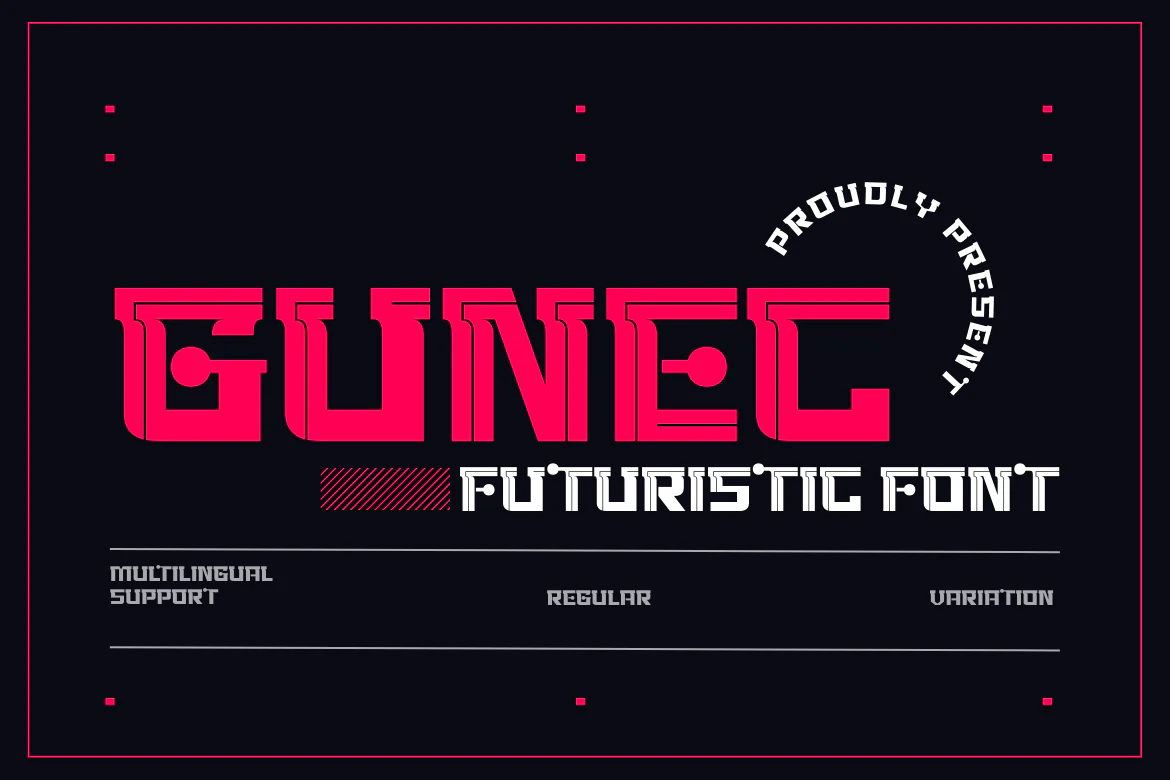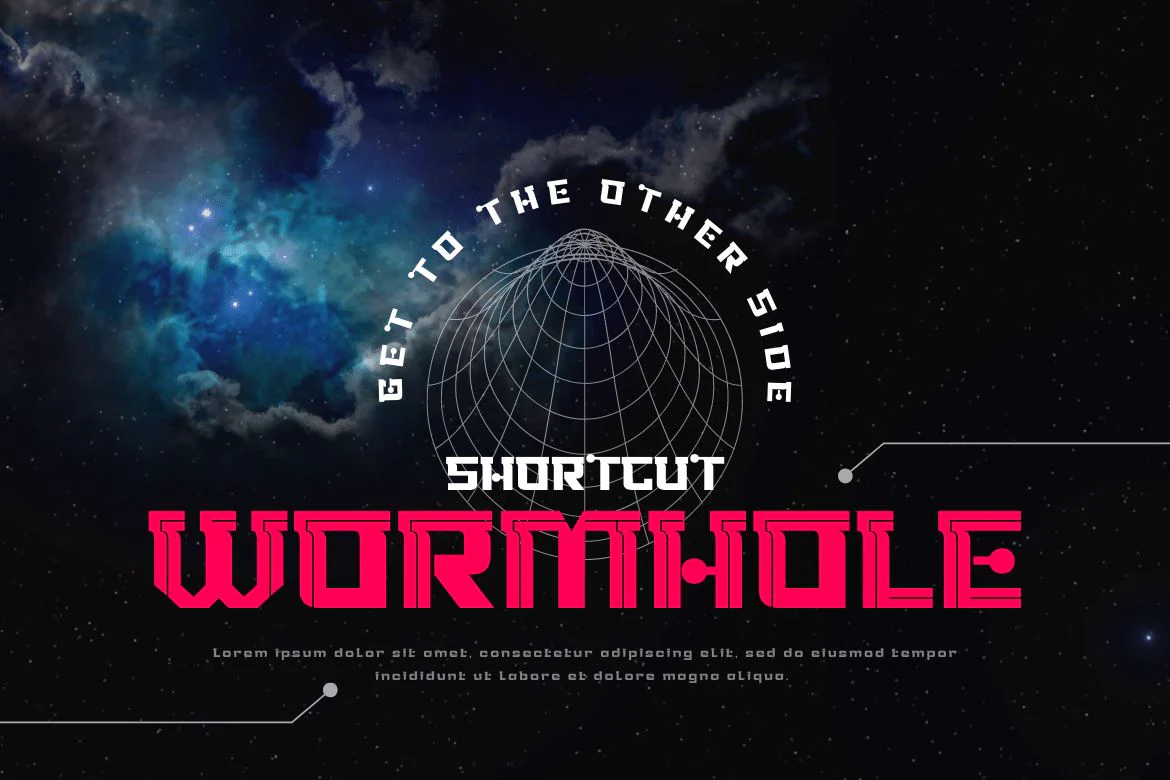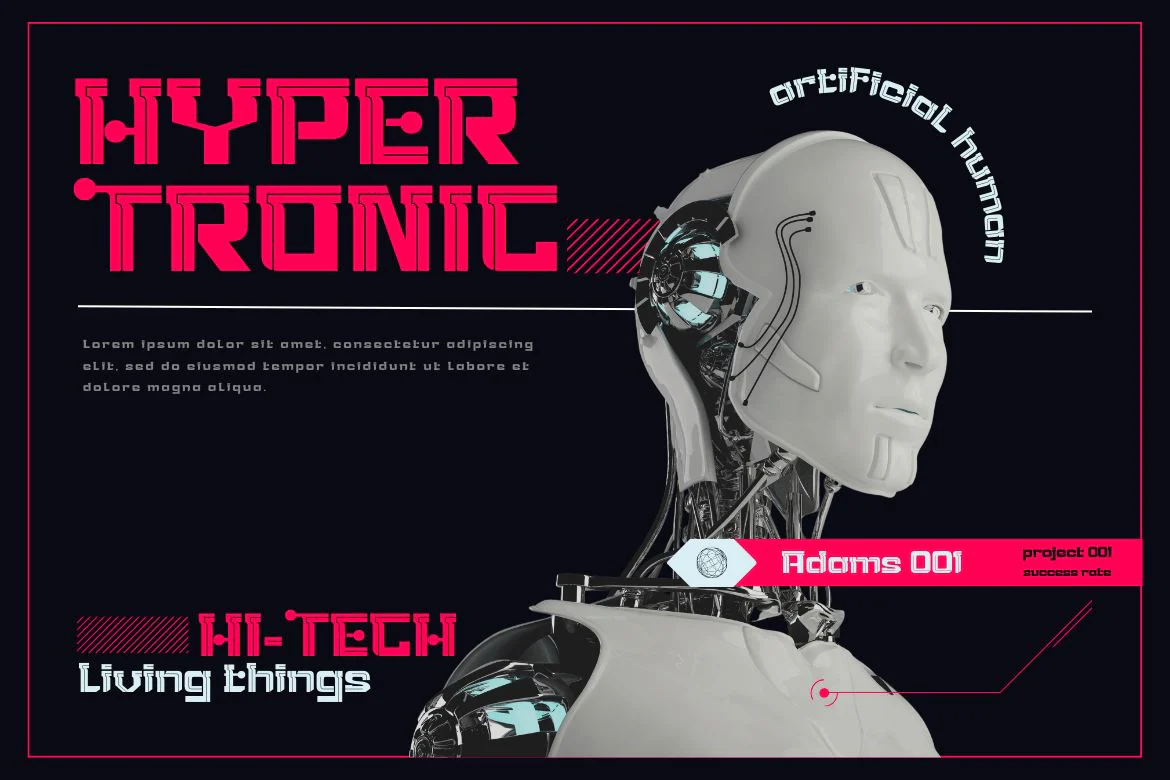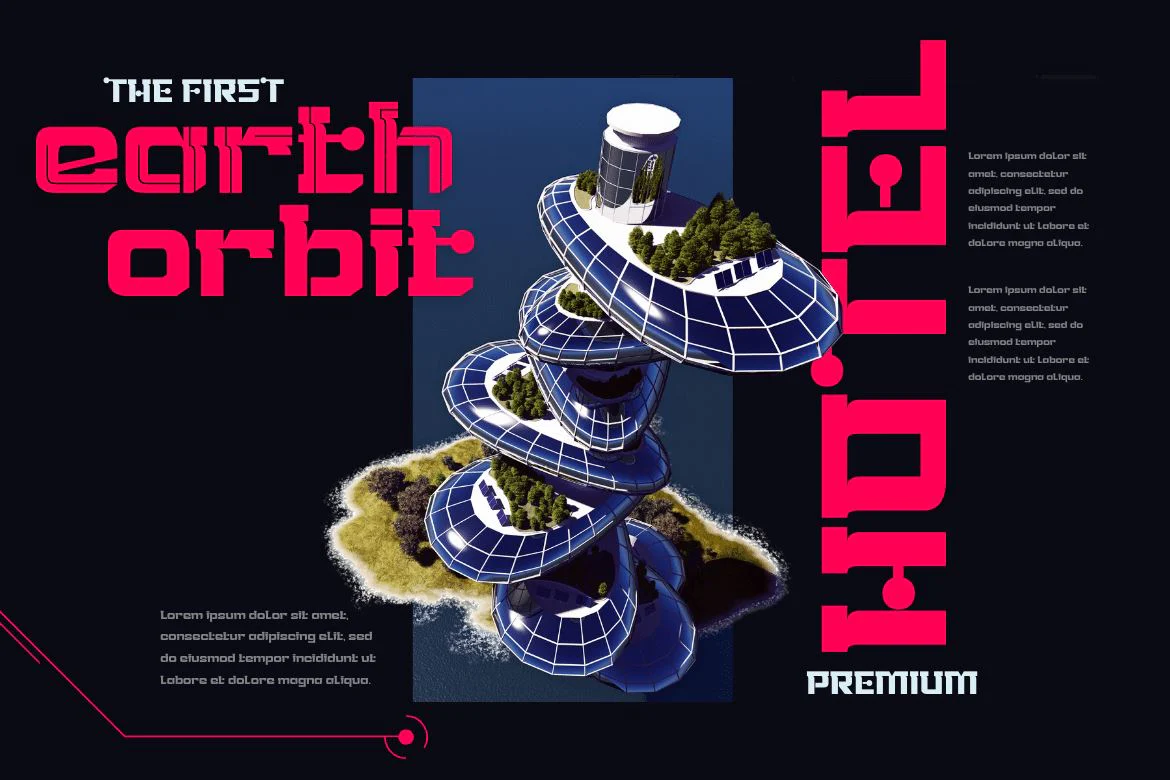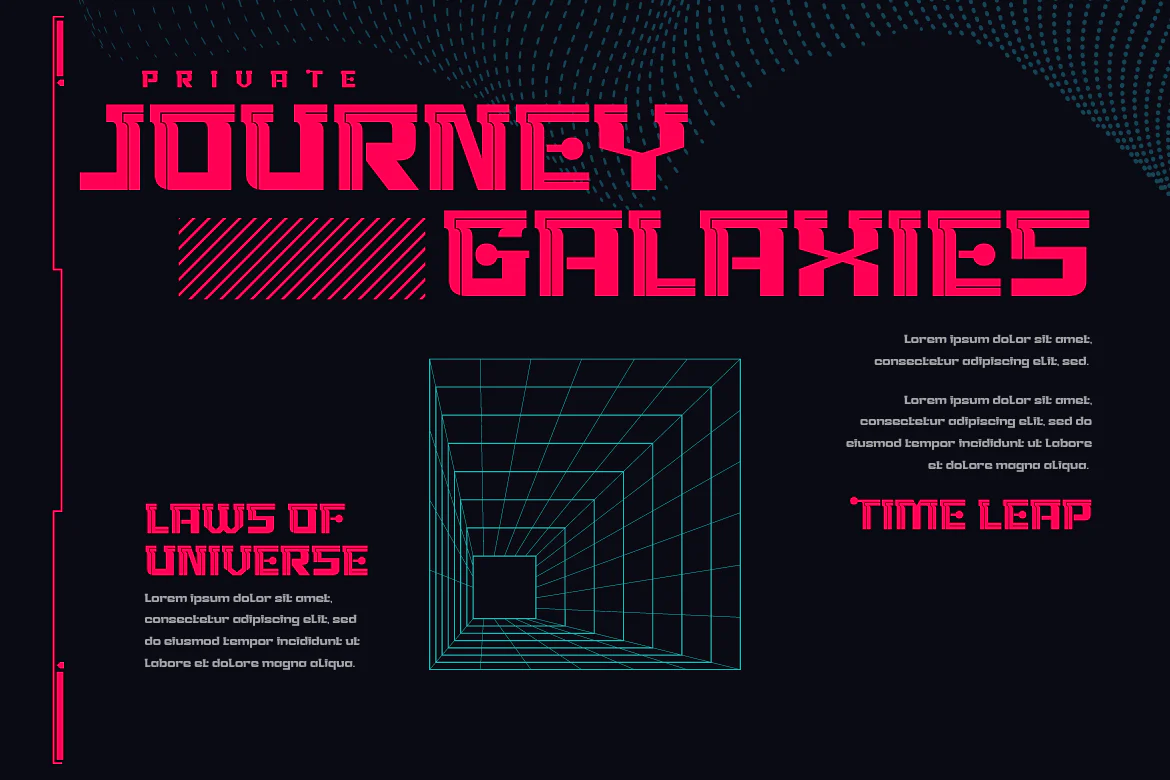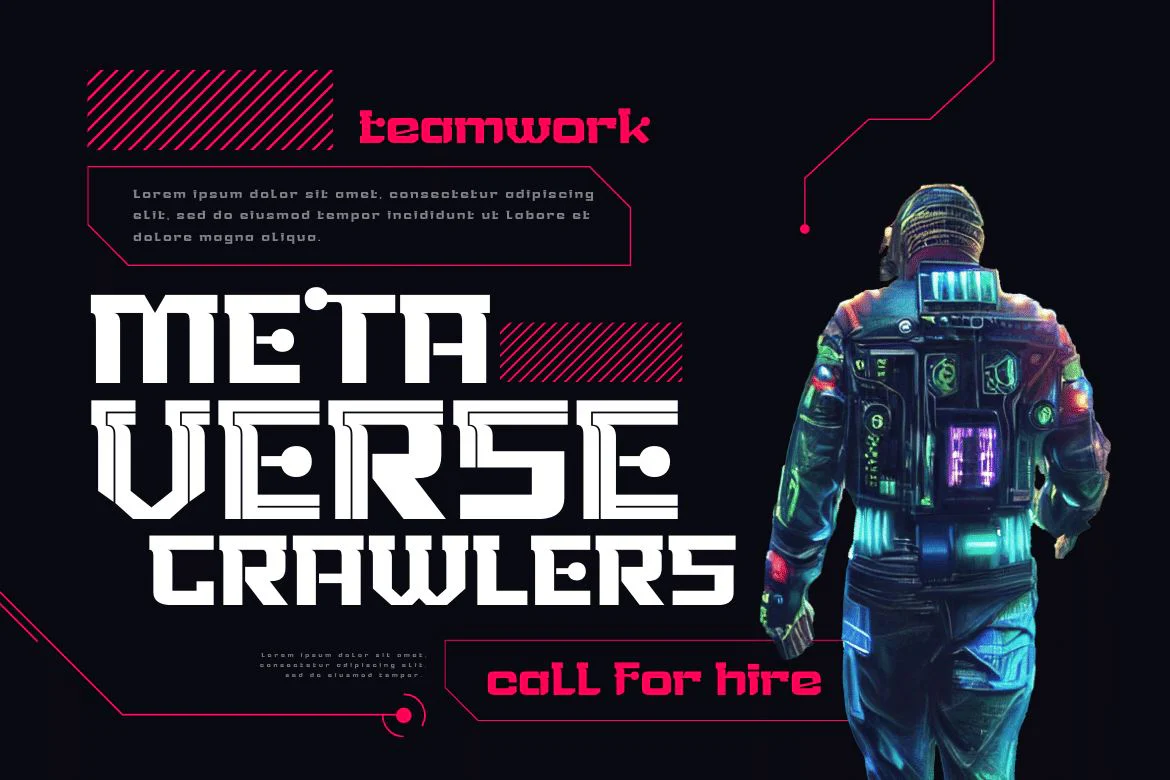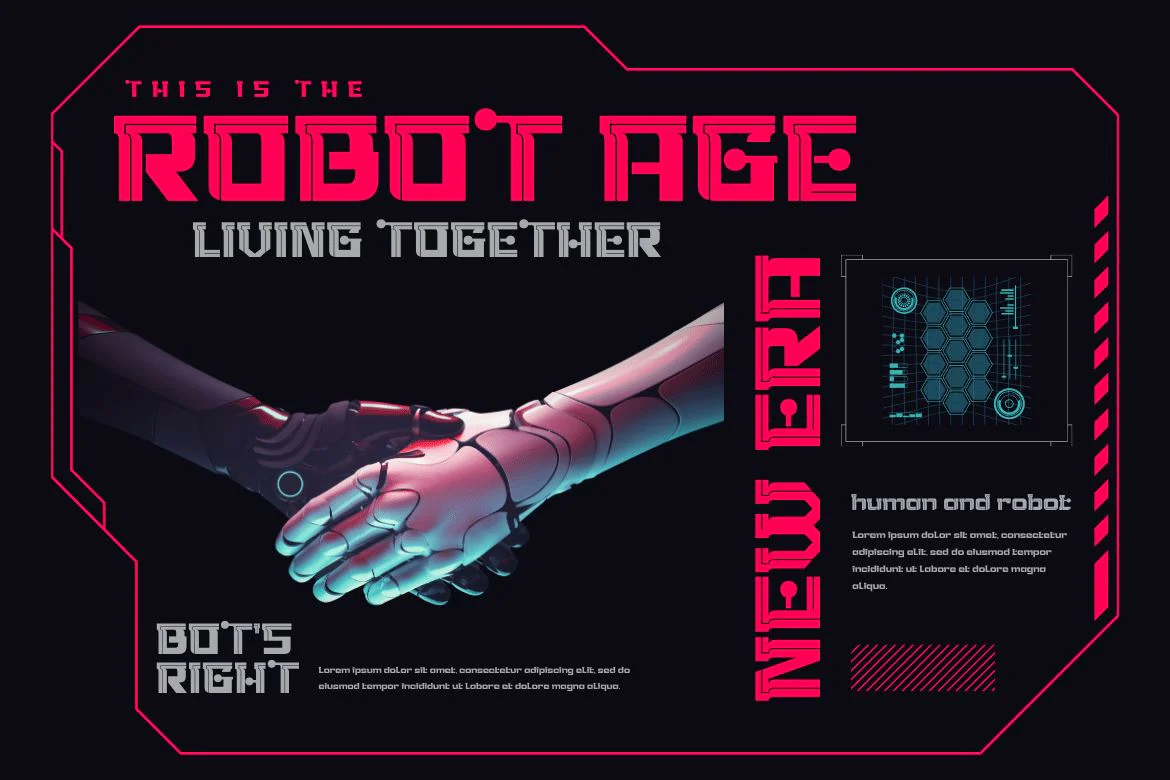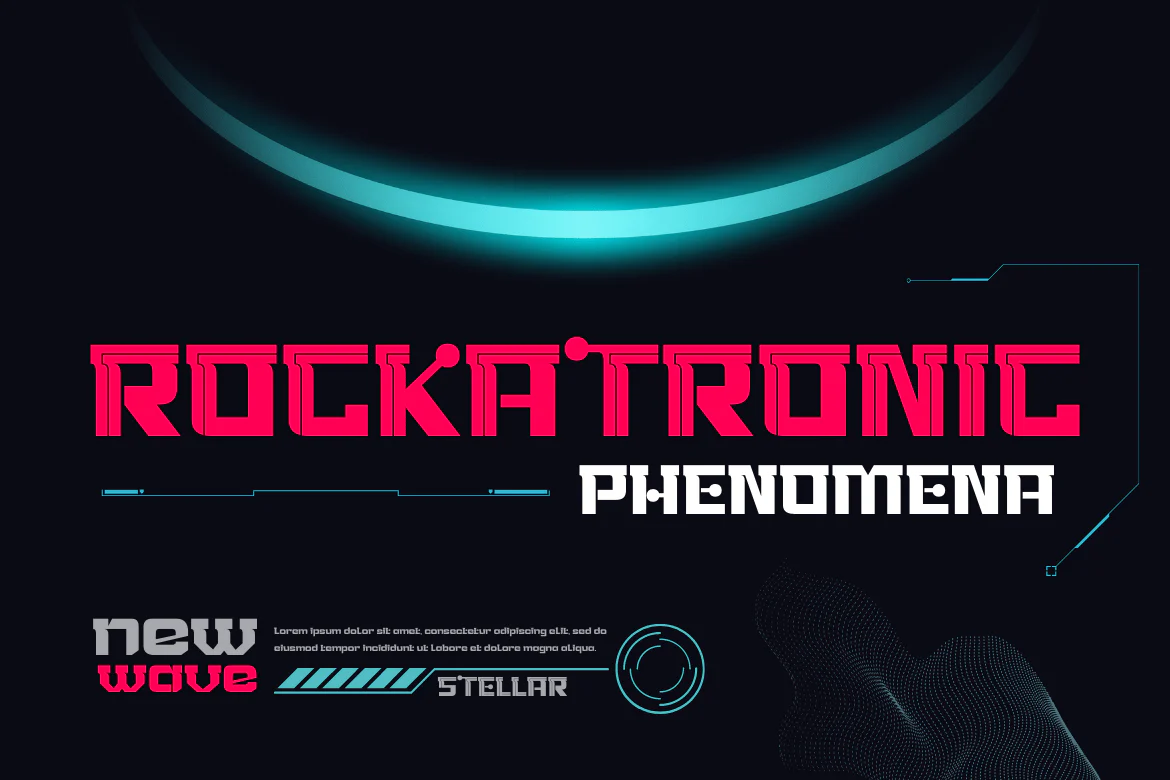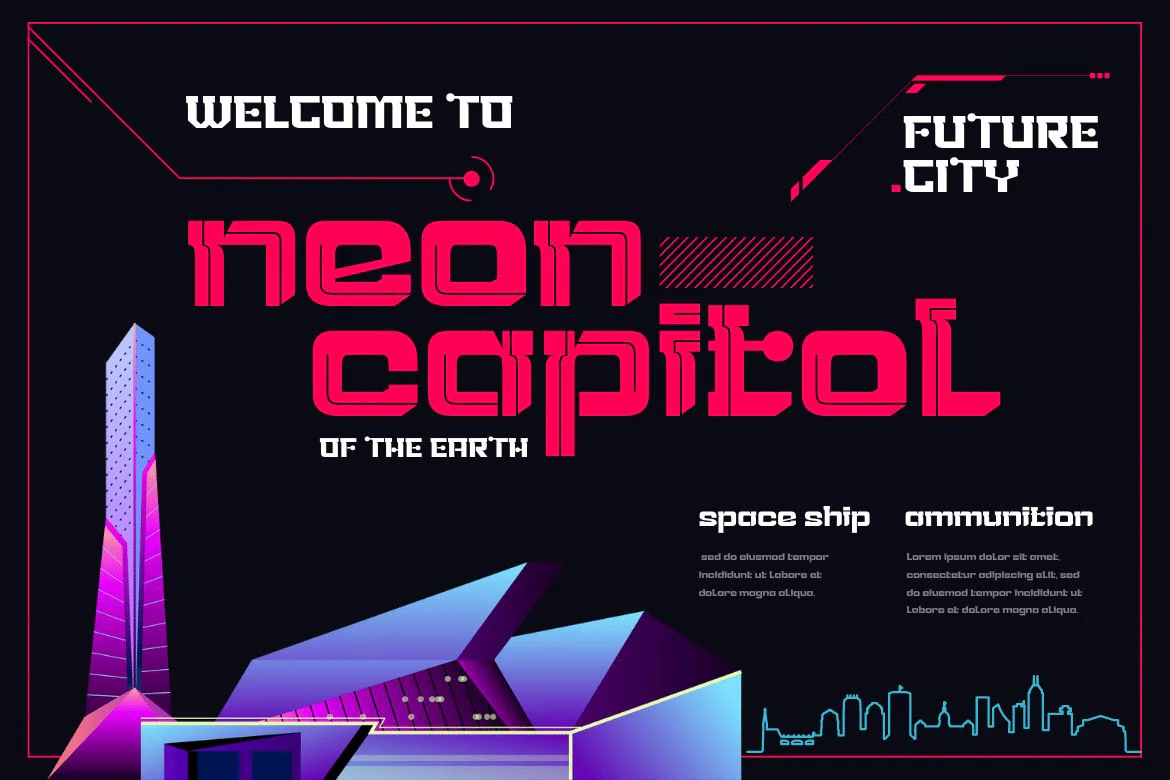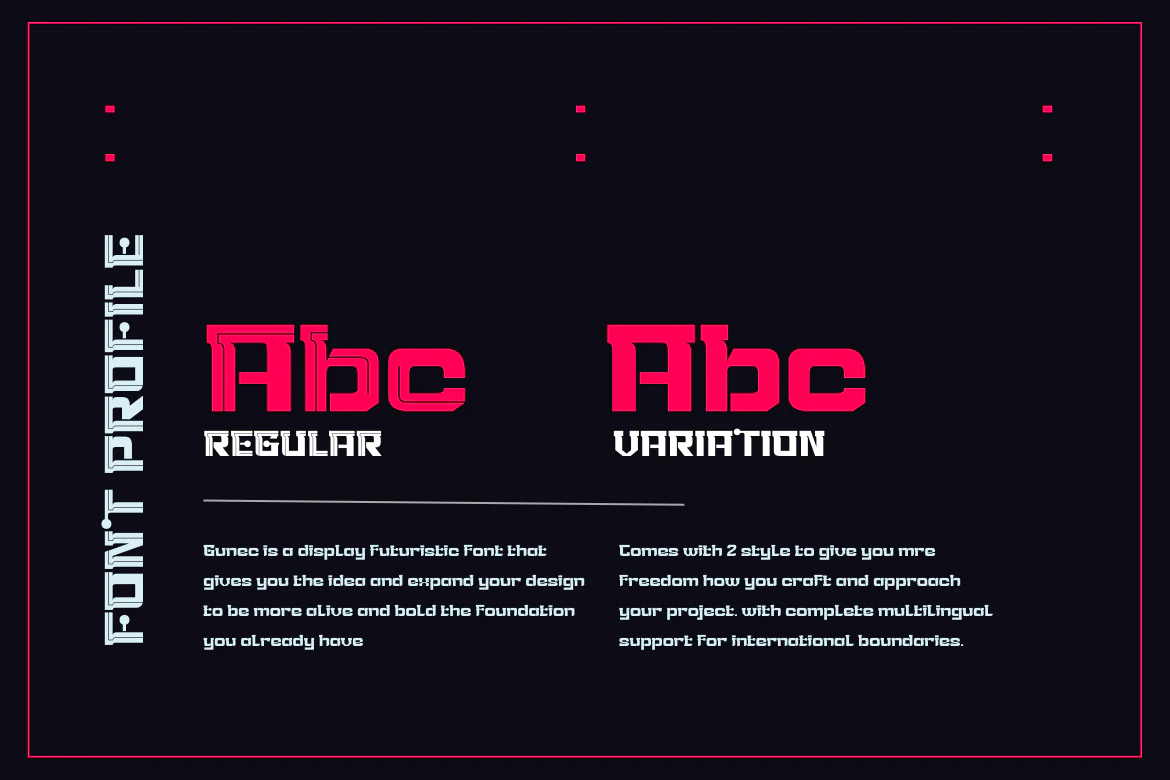
Gunec | Futuristic Font
Introducing Gunec, a cutting-edge and futuristic font ideal for technology- and science-related designs. Gunec is the ideal choice for anyone looking to add a touch of futurism to their work thanks to its distinctive letterforms and svelte lines.
The versatile font Gunec can be used for a variety of tasks, such as branding, packaging design, book covers, and more.
However, Gunec is more than just a pretty face. This font is ideal for all of your design projects, from print to digital, as it is made to be highly legible and simple to read. Additionally, Gunec has all the elements required to produce a comprehensive and professional design, including a full set of upper- and lowercase letters, punctuation, and numerals.
With Gunec font, you’ll be able to create designs that are both stylish and professional, with a futuristic look that’s sure to stand out. This font is perfect for those who want to be ahead of the curve in design, and for those who want to add a touch of innovation to their work.